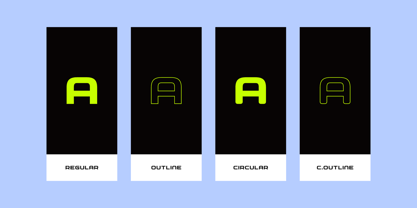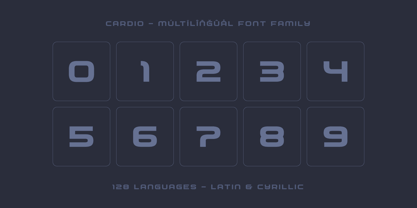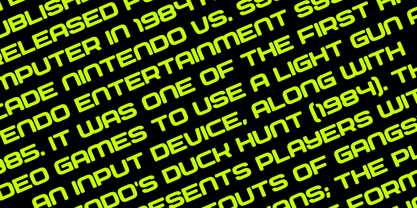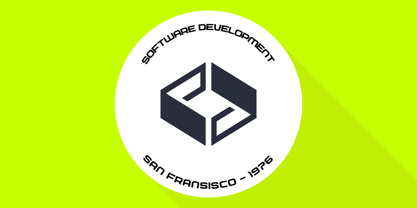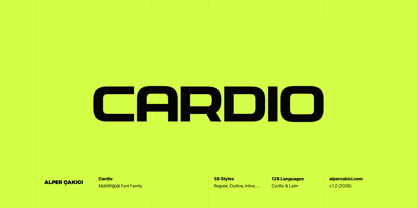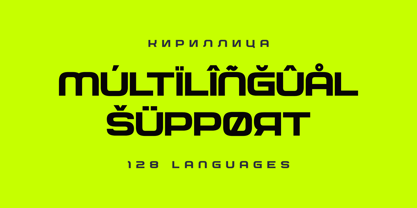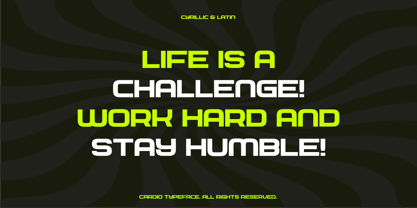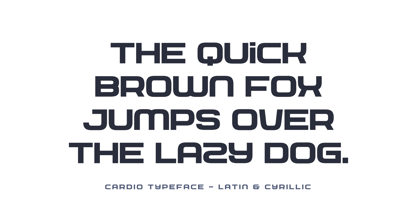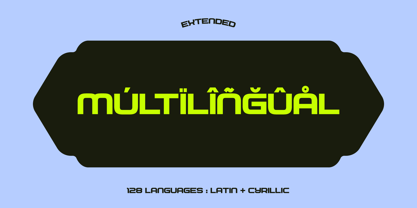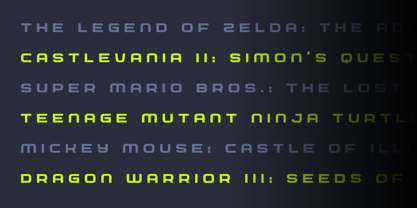
Cardio
La familia tipográfica Cardio fue diseñada por Alper Çakıcı y publicada por AlperCakici. Cardio contiene 1 estilos.
Cardio - A Display Font : Cardio is a carefully crafted display font. It has Extended Latin and Cyrillic characters. It created for poster, web, brand and social media designs.
It supports 91 Languages: Belarusian, Russian, Afrikaans, Albanian, Asu, Basque, Bemba, Bena, Breton, Catalan, Chiga, Colognian, Cornish, Croatian, Czech, Danish, Dutch, Embu, English, Esperanto, Estonian, Faroese, Filipino, Finnish, French, Friulian, Galician, German, Gusii, Hungarian, Indonesian, Irish, Italian, Kabuverdianu, Kalenjin, Kamba, Kikuyu, Kinyarwanda, Latvian, Lithuanian, Lower Sorbian, Luo, Luxembourgish, Luyia, Machame, Makhuwa-Meetto, Makonde, Malagasy, Maltese, Manx, Meru, Morisyen, North Ndebele, Norwegian Bokmål, Norwegian Nynorsk, Nyankole, Oromo, Polish, Portuguese, Quechua, Romanian, Romansh, Rombo, Rundi, Rwa, Samburu, Sango, Sangu, Scottish Gaelic, Sena, Serbian, Shambala, Shona, Slovak, Soga, Somali, Spanish, Swahili, Swedish, Swiss German, Taita, Teso, Turkish, Upper Sorbian, Uzbek (Latin), Volapük, Vunjo, Walser, Welsh, Western Frisian, Zulu